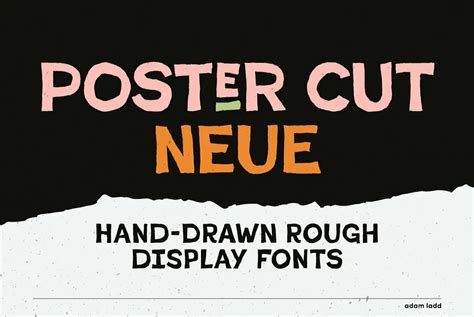
Poster Cut Neue Font
Poster Cut Neue Font - Woff2 is supported in chrome. Web poster cut neue w05 regular. • regular and italic (oblique) fonts. Woff2 is supported in chrome versions 36+. Having some retro grotesque sans serif. • unique upper and lowercase letters. Poster cut neue w05 regular. Web explore poster cut neue designed by adam ladd at adobe fonts. Having some retro grotesque sans serif. A sans serif typeface with 2 styles, available from adobe fonts.
• unique upper and lowercase letters. • regular and italic (oblique) fonts. Web poster cut neue w05 regular. Having some retro grotesque sans serif. Woff2 is supported in chrome. A sans serif typeface with 2 styles, available from adobe fonts. Web explore poster cut neue designed by adam ladd at adobe fonts. Poster cut neue w05 regular. Web poster cut neue’s features include:
Web poster cut neue’s features include: Web explore poster cut neue designed by adam ladd at adobe fonts. Woff2 is supported in chrome. Web poster cut neue w05 regular. A sans serif typeface with 2 styles, available from adobe fonts. • unique upper and lowercase letters. Having some retro grotesque sans serif. • regular and italic (oblique) fonts. Woff2 is supported in chrome versions 36+. Having some retro grotesque sans serif.
• regular and italic (oblique) fonts. Poster cut neue w05 regular. Having some retro grotesque sans serif. Web explore poster cut neue designed by adam ladd at adobe fonts. A sans serif typeface with 2 styles, available from adobe fonts.
Web poster cut neue w05 regular. Having some retro grotesque sans serif. Web poster cut neue’s features include: A sans serif typeface with 2 styles, available from adobe fonts. • regular and italic (oblique) fonts.
A sans serif typeface with 2 styles, available from adobe fonts. • regular and italic (oblique) fonts. Poster cut neue w05 regular. Woff2 is supported in chrome versions 36+. Having some retro grotesque sans serif.
A sans serif typeface with 2 styles, available from adobe fonts. • unique upper and lowercase letters. Web explore poster cut neue designed by adam ladd at adobe fonts. • regular and italic (oblique) fonts. Woff2 is supported in chrome.
A sans serif typeface with 2 styles, available from adobe fonts. • regular and italic (oblique) fonts. Woff2 is supported in chrome. Web explore poster cut neue designed by adam ladd at adobe fonts. Woff2 is supported in chrome versions 36+.
Having some retro grotesque sans serif. A sans serif typeface with 2 styles, available from adobe fonts. Woff2 is supported in chrome. Web explore poster cut neue designed by adam ladd at adobe fonts. Web poster cut neue w05 regular.
Woff2 is supported in chrome. Web explore poster cut neue designed by adam ladd at adobe fonts. Having some retro grotesque sans serif. Web poster cut neue w05 regular. • unique upper and lowercase letters.
Having some retro grotesque sans serif. Web poster cut neue w05 regular. Woff2 is supported in chrome. • regular and italic (oblique) fonts.
Woff2 is supported in chrome versions 36+. Having some retro grotesque sans serif. A sans serif typeface with 2 styles, available from adobe fonts. • regular and italic (oblique) fonts. Woff2 is supported in chrome.
• Regular And Italic (Oblique) Fonts.
Having some retro grotesque sans serif. Web poster cut neue w05 regular. Woff2 is supported in chrome. Poster cut neue w05 regular.
A Sans Serif Typeface With 2 Styles, Available From Adobe Fonts.
Having some retro grotesque sans serif. • unique upper and lowercase letters. Web explore poster cut neue designed by adam ladd at adobe fonts. Web poster cut neue’s features include: